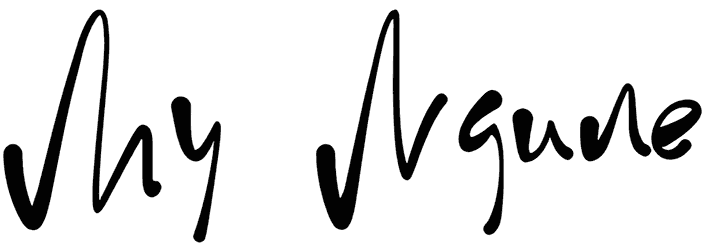
My Ngune Font
If you’re designing a logo, personal letter, wedding invitation, or greeting card, My Ngune is an exciting way to differentiate your brand. With this handwritten font, you’ll be provided with many ways to push the boundaries of creativity, and by going through each of them, you can be upgraded to the next level.
This script font will be a very suitable option for designers who are obsessed with choosing a font with unique beauty, even though it’s illegible.